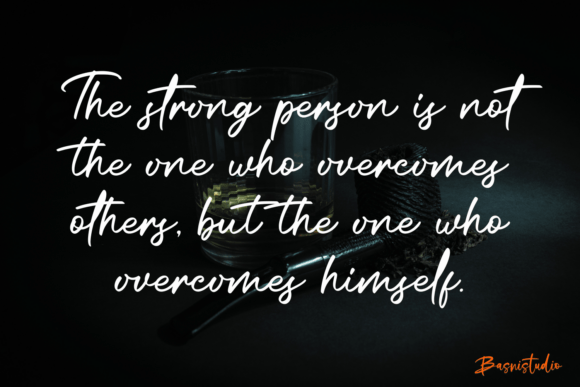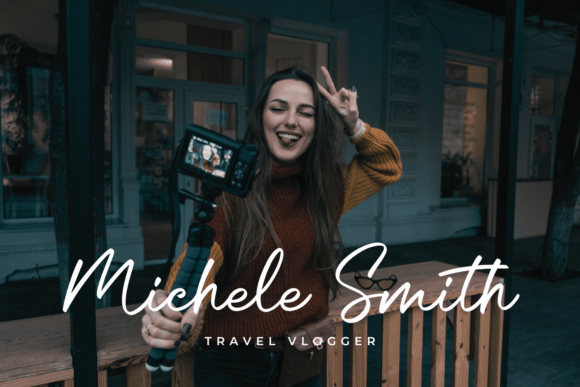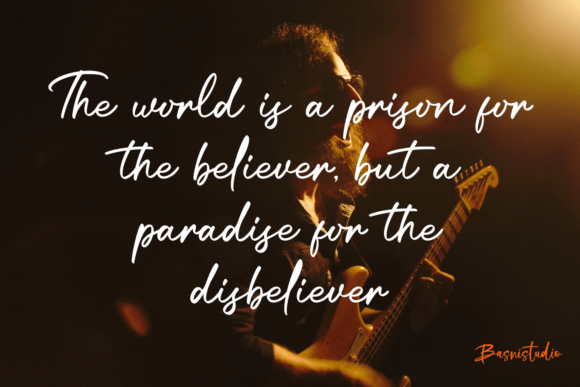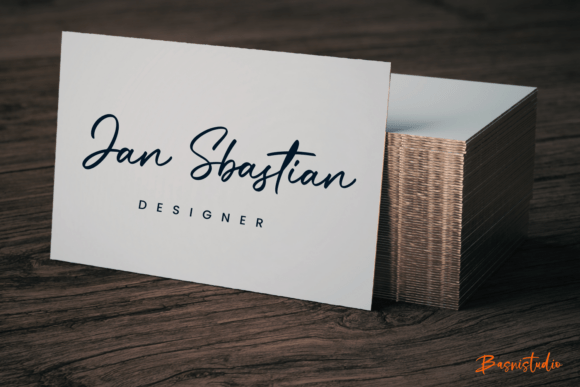
The Perfect Handwritten Touch: Unlocking the Power of Austrian Cinamone Font
Remember the moment when you first stumbled upon the perfect font for your project? The thrill of seeing your ideas come to life, the rush of excitement as your design takes shape, and the satisfaction of knowing you’ve found the perfect tool to bring your vision to the world. For designers, finding that elusive font can be a game-changer.
Enter the Austrian Cinamone Font, a beautifully crafted handwritten typeface that adds a natural, personal touch to everything from branding and social media to invitations and packaging. This elegant and versatile font is perfect for logos, quotes, greeting cards, and more, making it an invaluable asset for any designer looking to add a touch of authenticity to their work.
Austrian Cinamone Font Key Features
- Font Family: Austrian Cinamone, Austrian Cinamone Bold, Austrian Cinamone Italic, Austrian Cinamone Bold Italic
- Unique Characteristics: The Austrian Cinamone font features a distinctive, elegant design with intricate details and ornate flourishes, making it suitable for formal and luxurious typography
- Font Style: Script, Brush Script, and Calligraphic styles are included, offering a range of creative possibilities
Austrian Cinamone Font Review
Overall, I think the Austrian Cinamone font is a unique and interesting choice for designers looking to add some flair to their projects. ✨ The font’s cursive style and subtle texture give it a warm, inviting feel that’s perfect for creative projects like book covers, wedding invitations, or gourmet packaging.
- The font’s script-like qualities make it ideal for hand-written style text, such as testimonials or quotes.
- The subtle texture adds depth and visual interest to the font, making it stand out from more basic sans-serif fonts.
- The font is highly customizable, allowing designers to adjust the weight, size, and color to suit their specific needs.
However, there are some limitations to consider. ⚠️ The font may be difficult to read at small sizes or in low-light conditions due to its cursive style and texture. Additionally, the font may not be suitable for projects that require a more formal or professional tone.
Overall, I think the Austrian Cinamone font is a great choice for designers looking to add some personality to their projects. While it may not be suitable for every project, it’s a great option for creative and expressive designs.
Tips for Getting the Most Out of Austrian Cinamone Font
Experiment with different font sizes, colors, and styles to achieve the desired look. Use the font to create stunning headings, titles, and body text. Pair the font with other fonts to create a unique design.
Common Use Cases for Austrian Cinamone Font
The Austrian Cinamone Font is ideal for creating elegant and sophisticated designs. Use it for:
– Luxury product packaging and branding
– High-end business presentations and documents